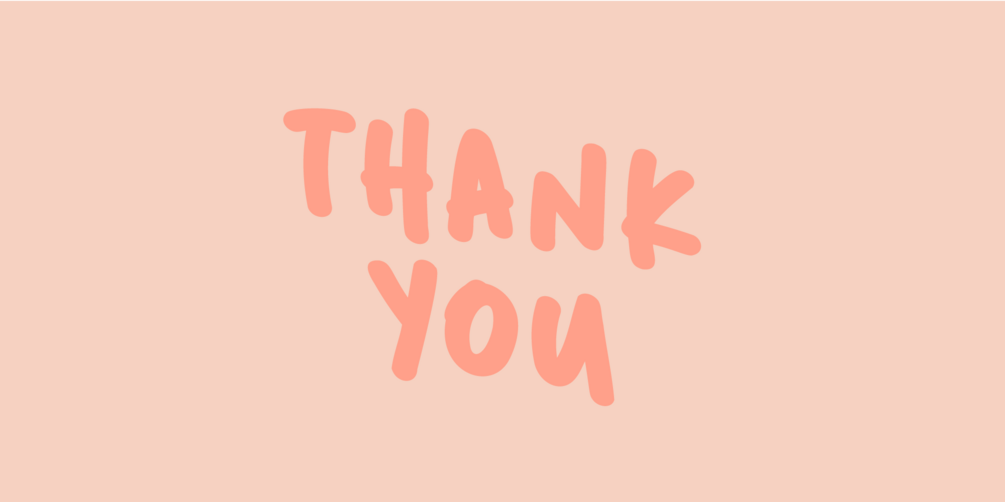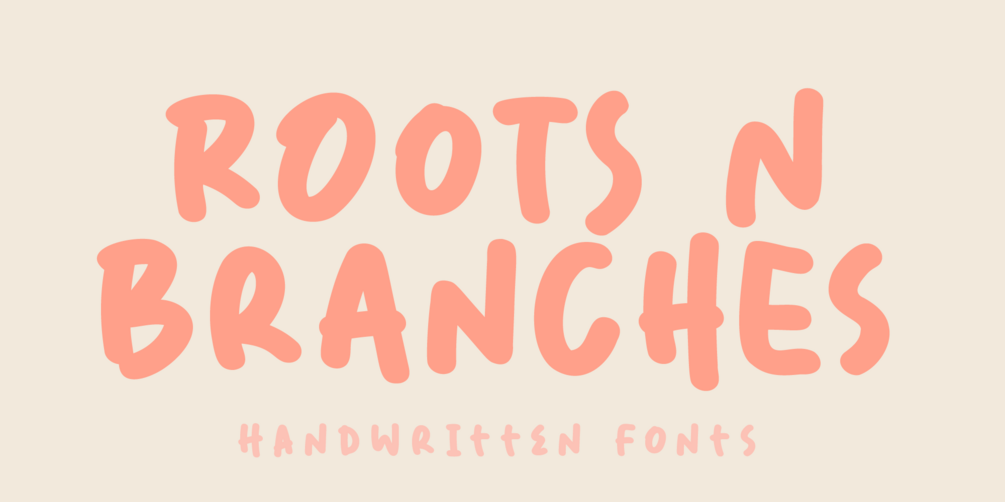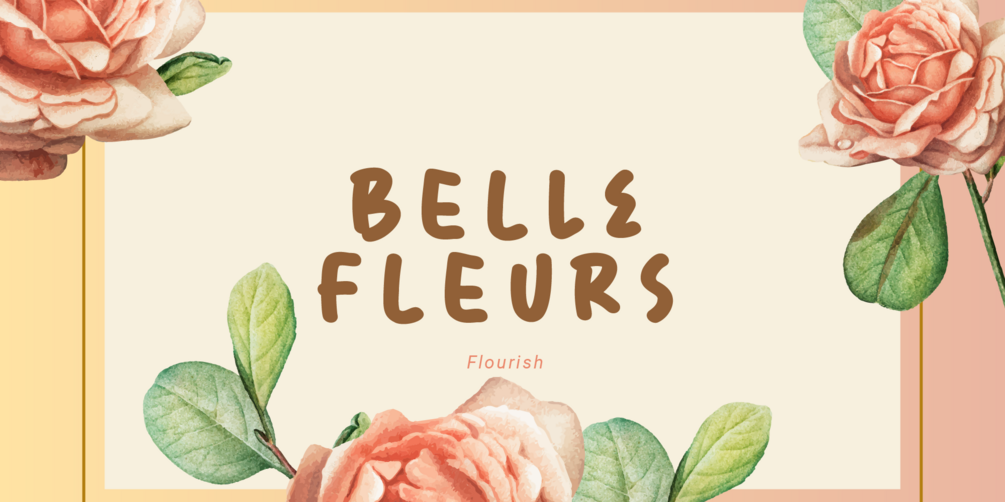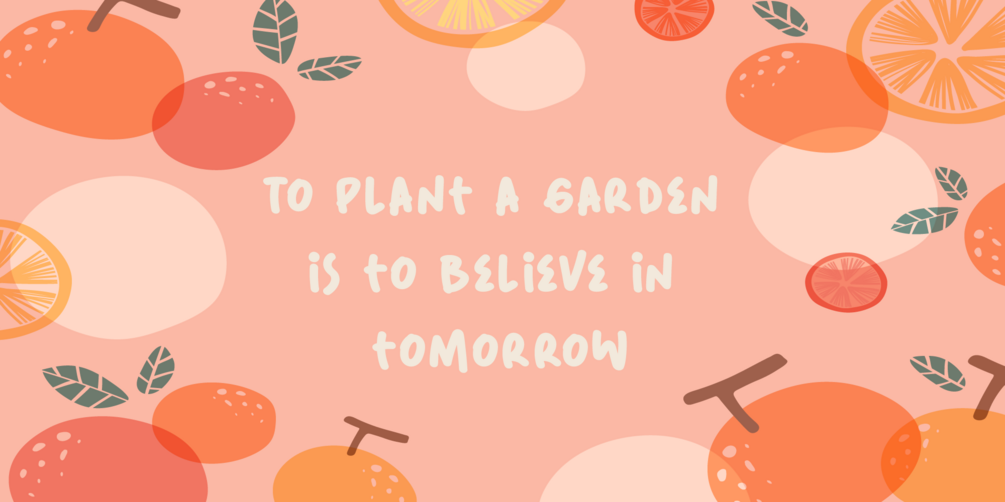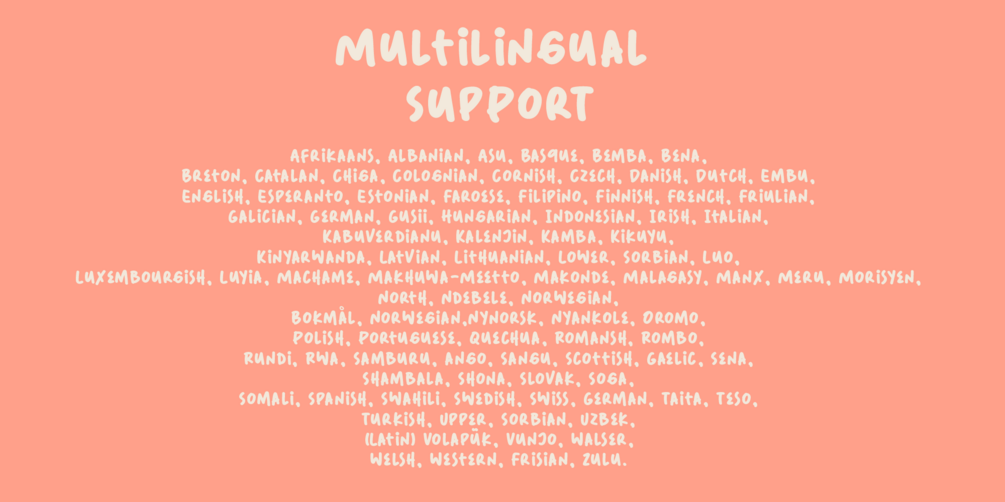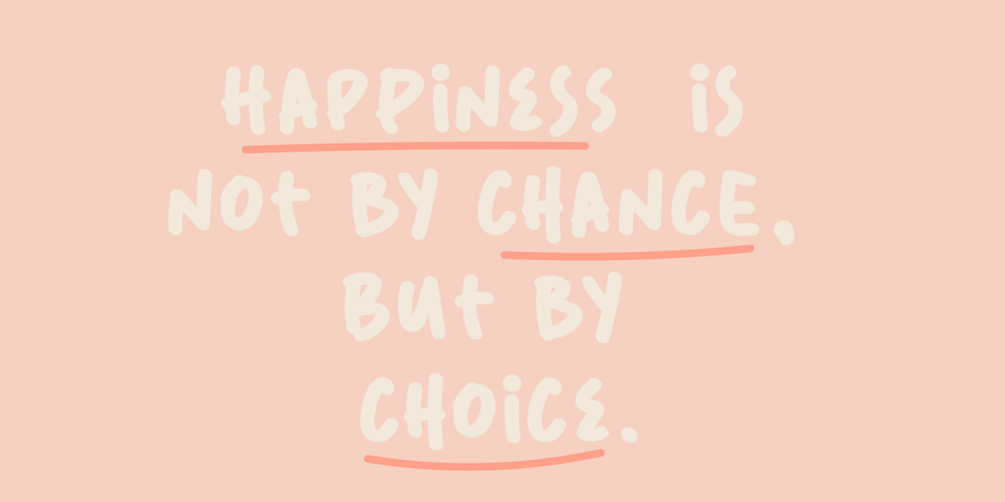
Roots N Branches - Handwritten Fonts
Hello, Introduce the new font : Roots N Branches
Roots N Branches inspired by hipster life.
Handmade fonts & Sharpie marker
What's Included In Glyph ?
• Uppercase
• Lowercase
• Numerals
• Symbols
• European Multilingual